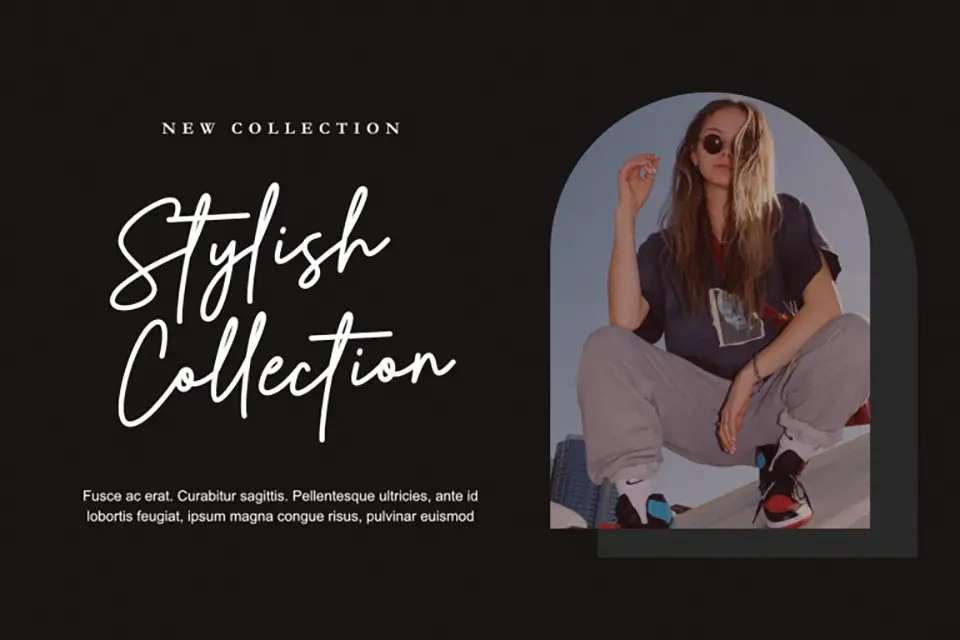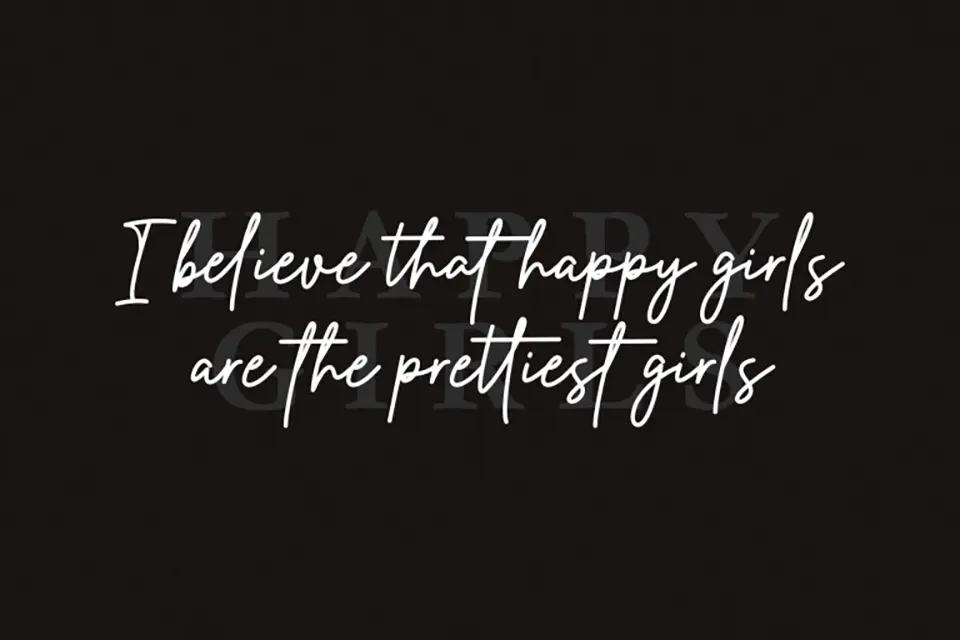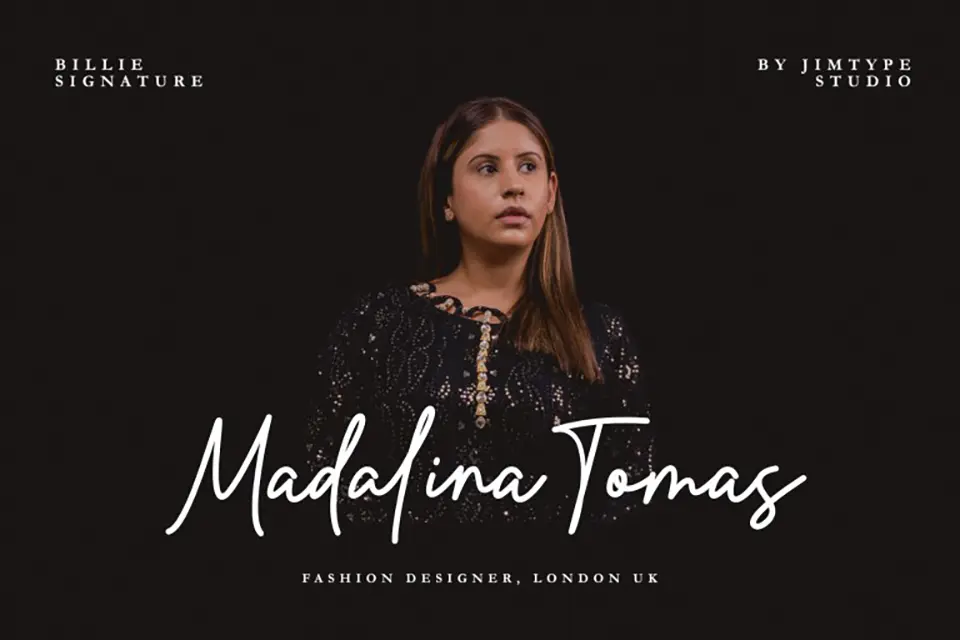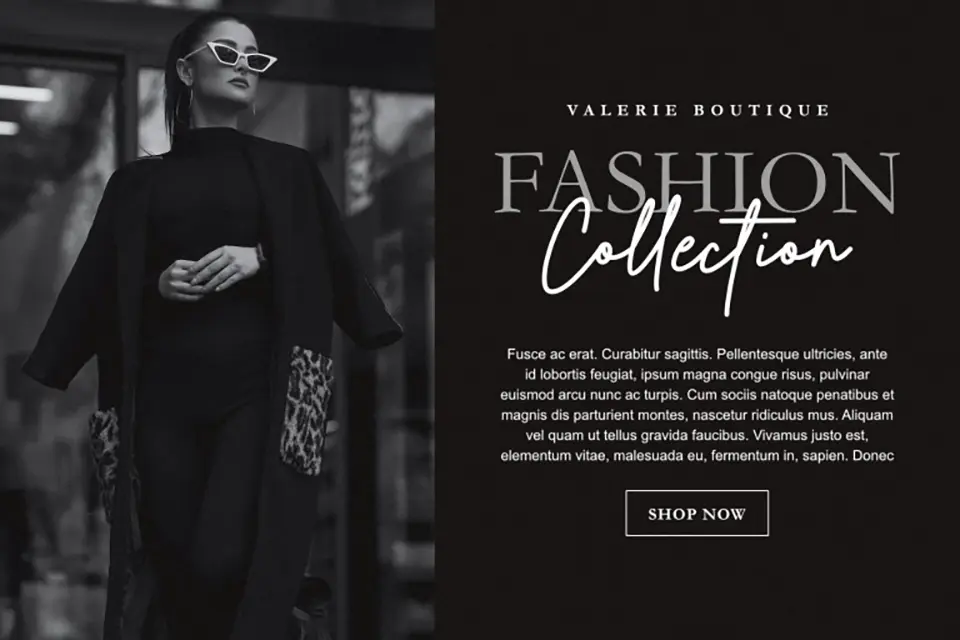
Billie Signature Font
Billie Signature Font is a contemporary handwritten typeface that effortlessly blends sophistication with a playful charm. Designed by Jimtype Studio, this monoline script features flowing curves, elegant letterforms, and subtle flourishes that create an organic, natural writing aesthetic. Its smooth connections between characters and carefully balanced proportions make it ideal for branding projects, luxury product packaging, wedding invitations, and social media graphics. The font includes standard Latin characters, numerals, punctuation, and ligatures for enhanced typographic flexibility. While the free demo version caters to personal projects like photo watermarks and greeting cards, the commercial license unlocks professional use in logos, advertisements, and product labels. With multilingual support and cross-platform compatibility, Billie Signature delivers timeless elegance across both digital and print mediums.